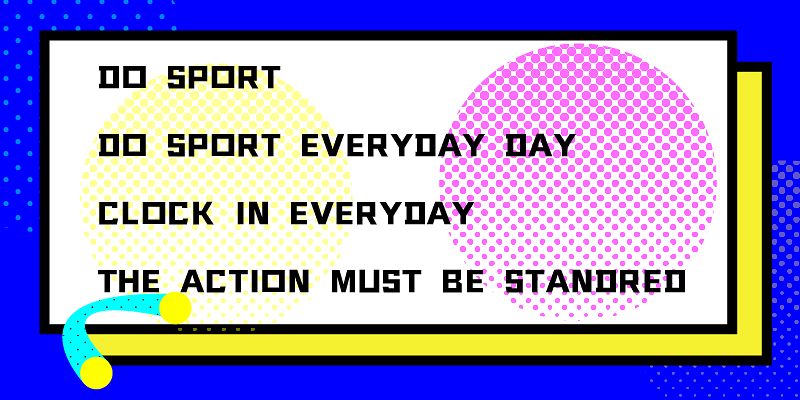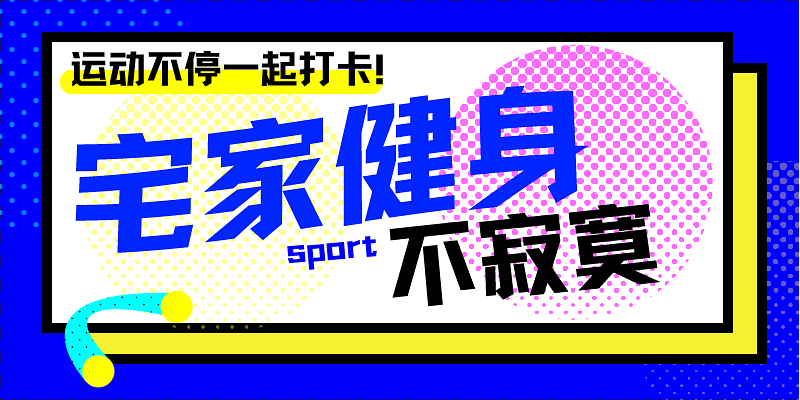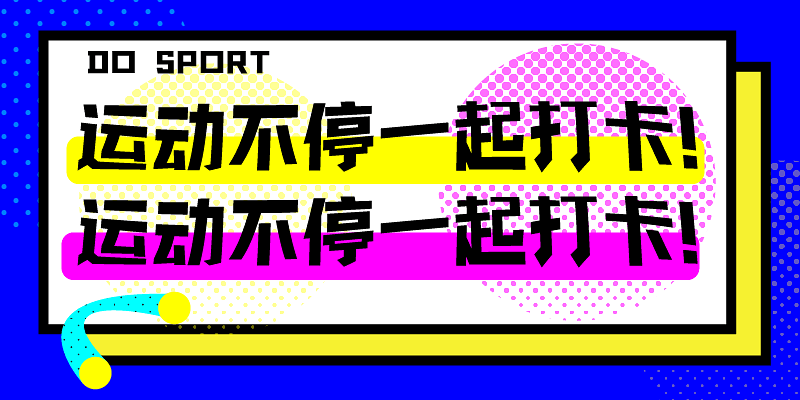
Structure of HelloFont ID JueJiangHei is overall square and full-bodied, with a very stable sense of power. Special artistic treatments such as point, up stroke, one stroke to the left, one stroke to the right and hook make it full of tension and give it a new character in the cool appearance . Usually, It is used in e-commerce posters, film and television publicity and other areas of great modern fashion sense.